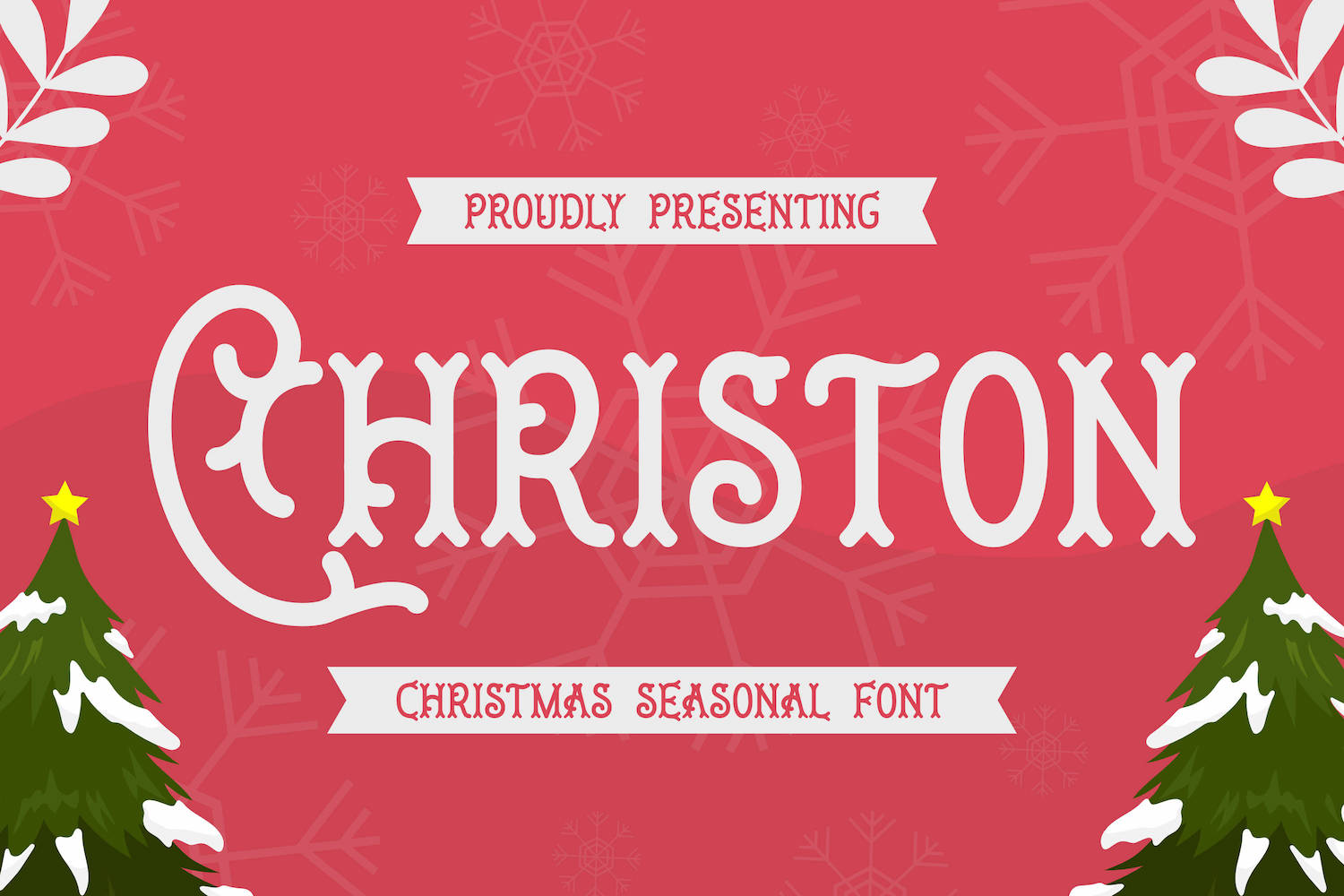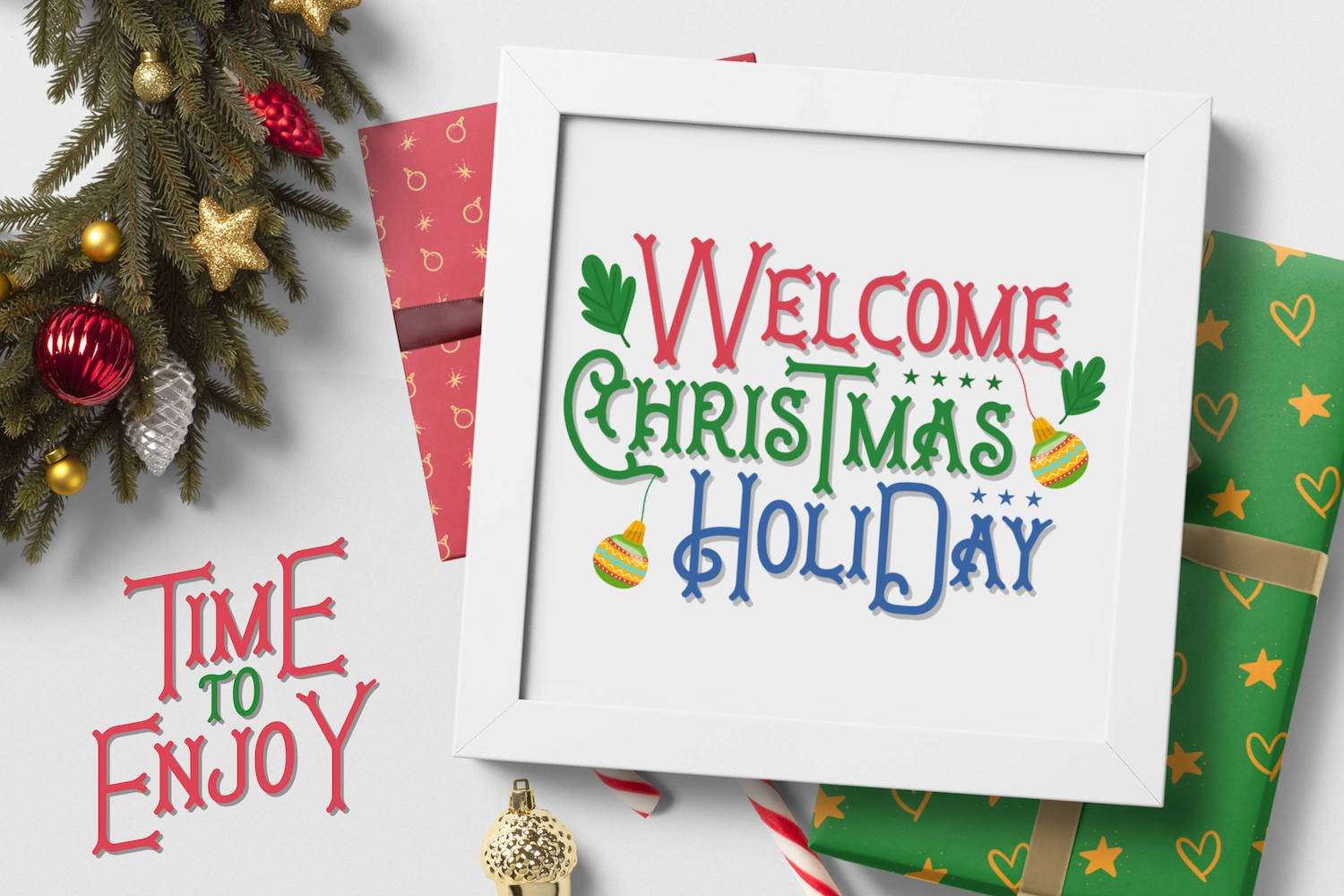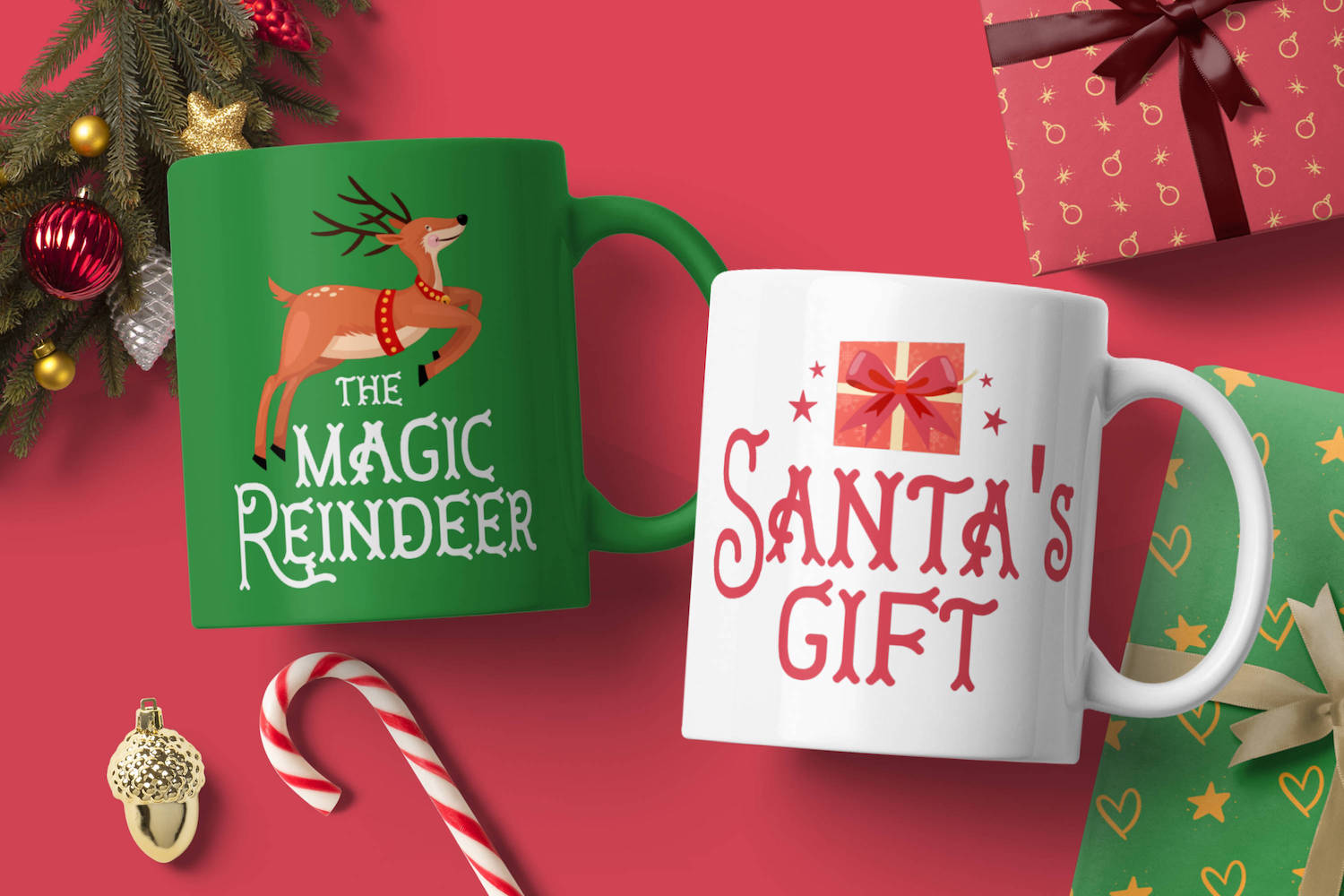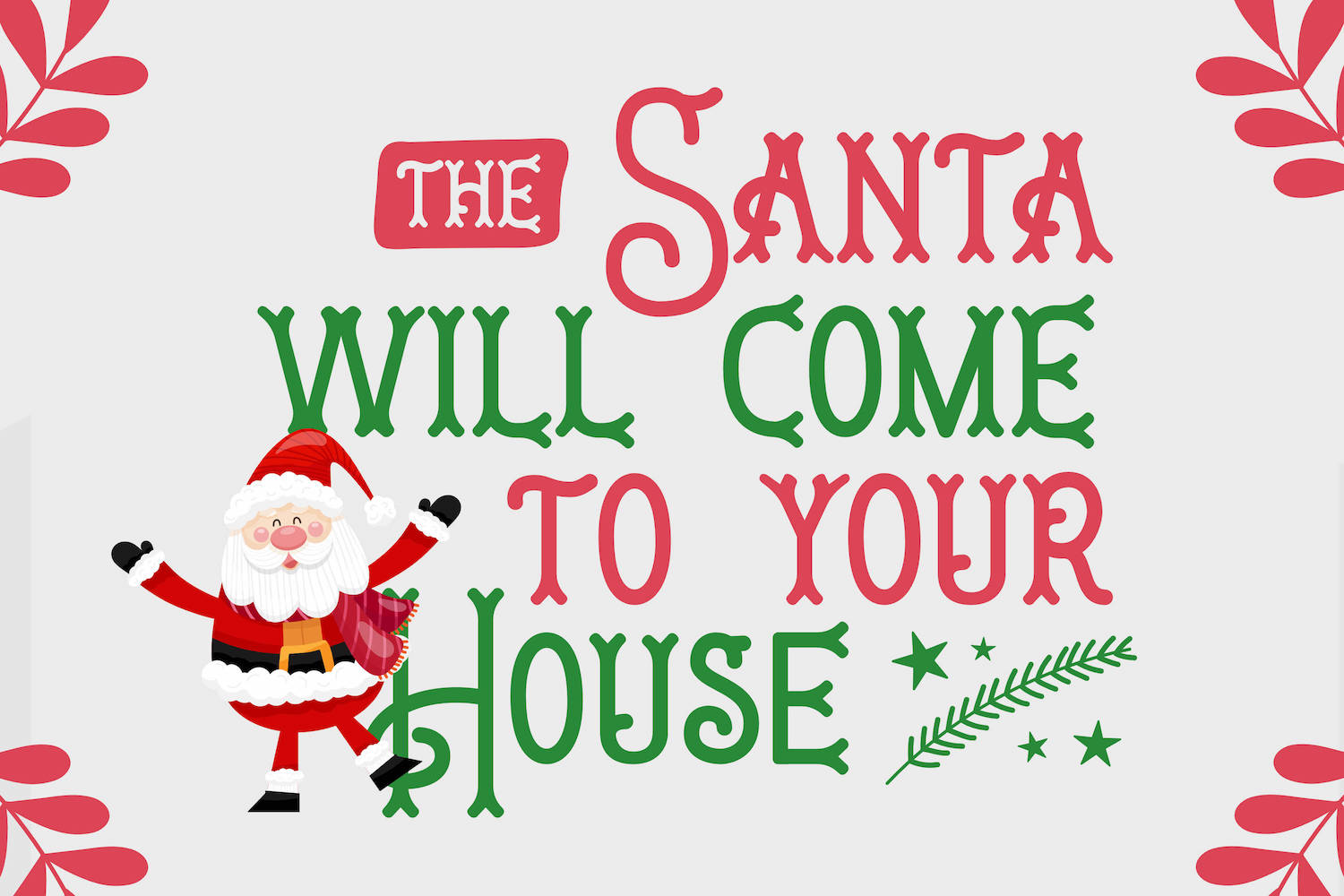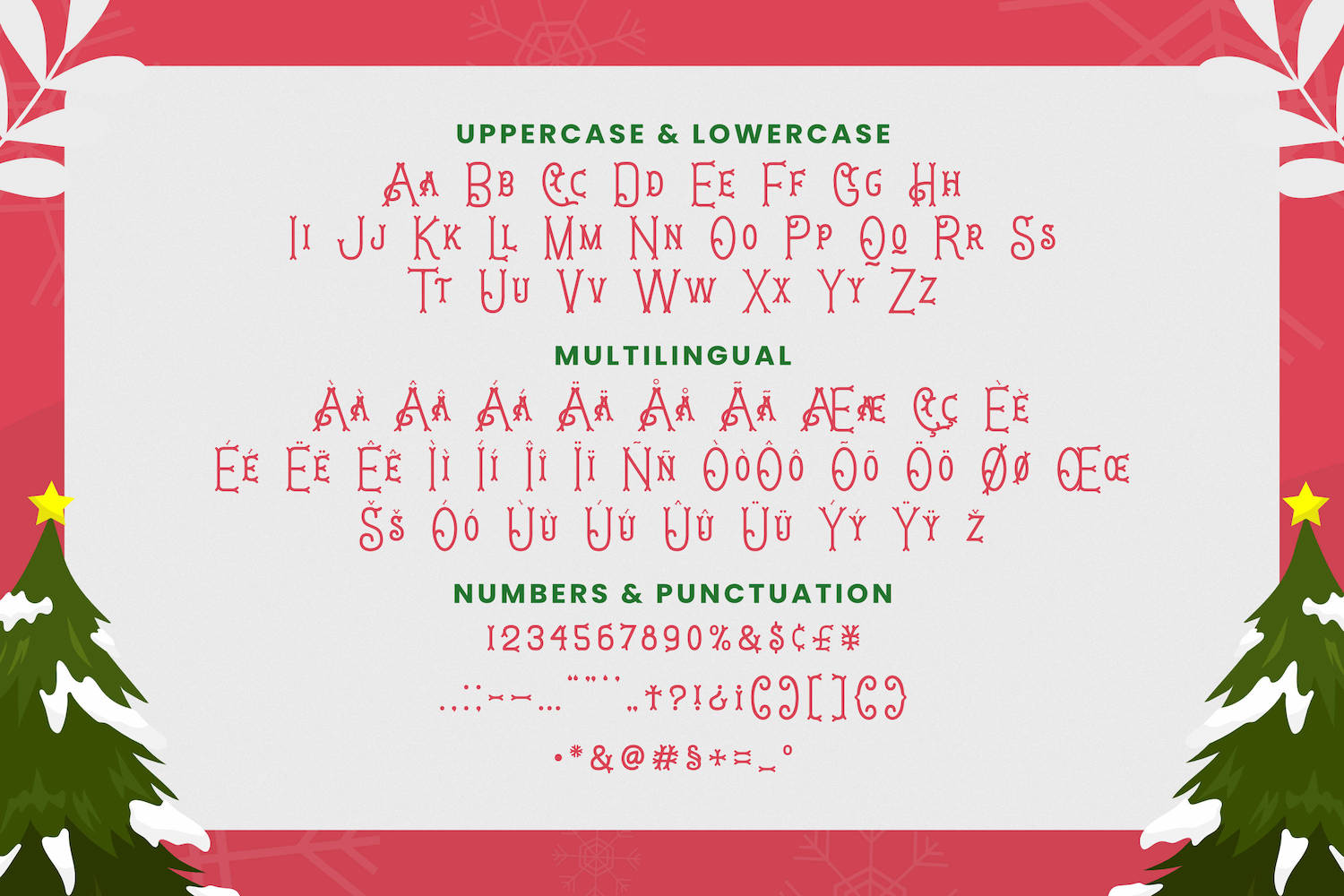
Christon is a decorative serif font designed especially for the holiday season. With its elegant curves, festive flair, and vintage-inspired serifs, Christon brings a joyful and nostalgic feel to your Christmas designs. The font features playful ornaments and classic letterforms that are perfect for creating eye-catching headlines, packaging, greeting cards, and holiday merchandise.
Equipped with full uppercase and lowercase characters, multilingual support, punctuation, and numerals, Christon offers flexibility and creativity for a variety of projects. Whether you’re designing for winter parties, holiday cards, or seasonal branding, Christon adds a magical touch that captures the true spirit of Christmas.
Christon